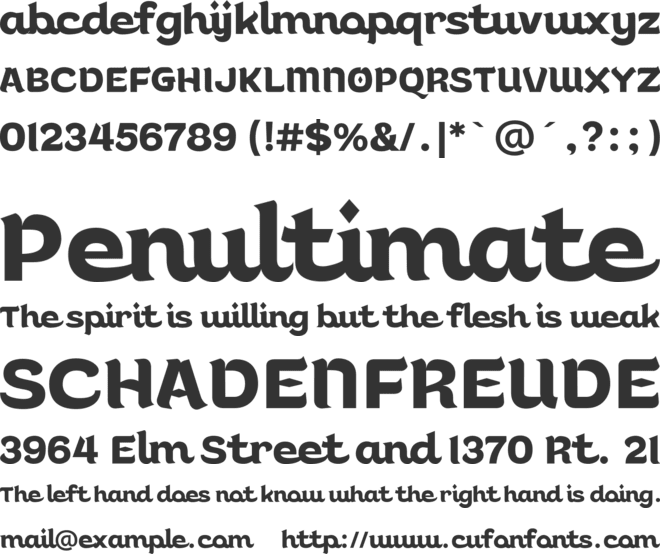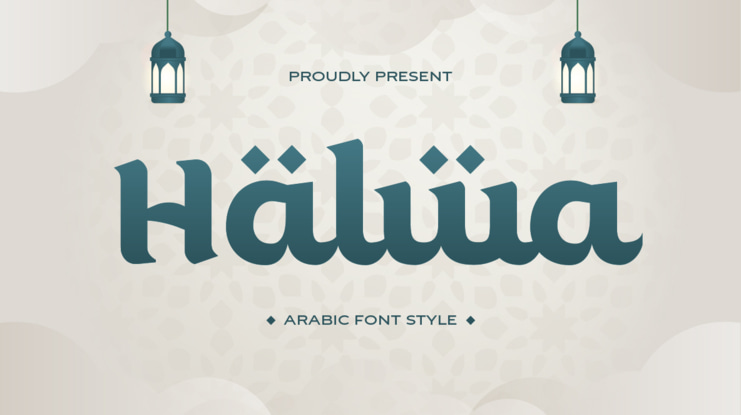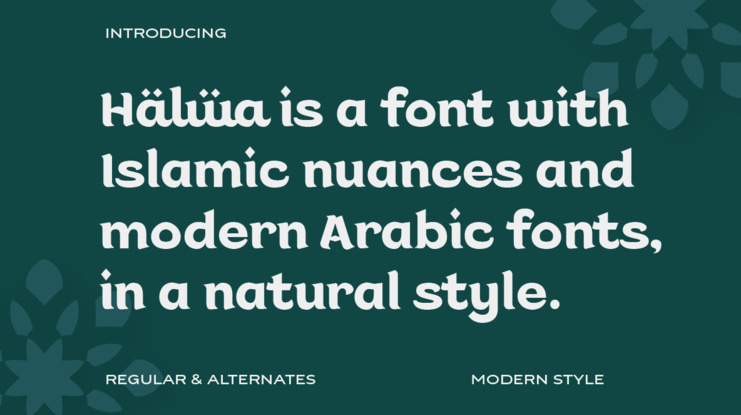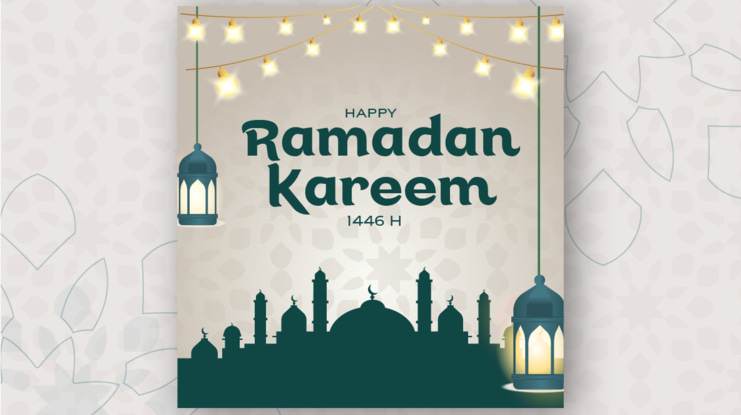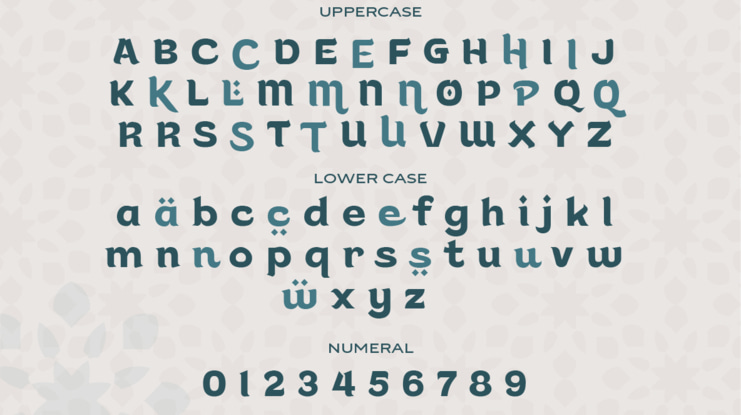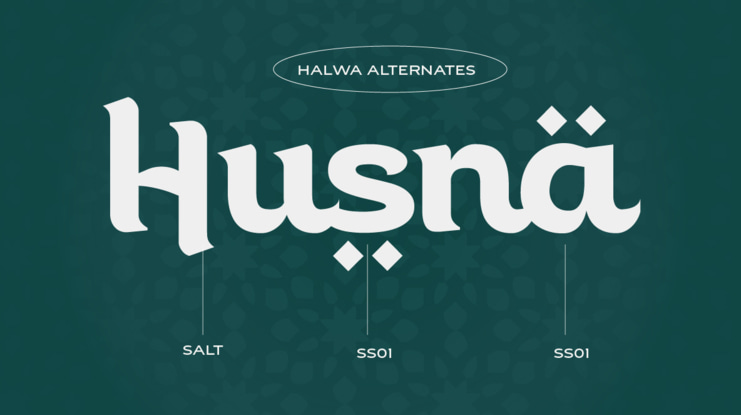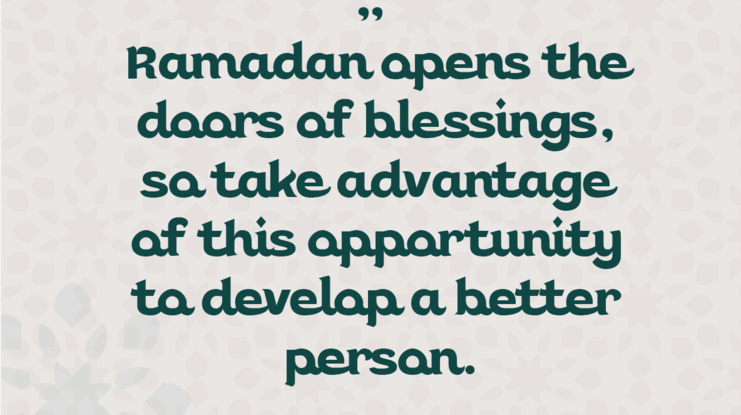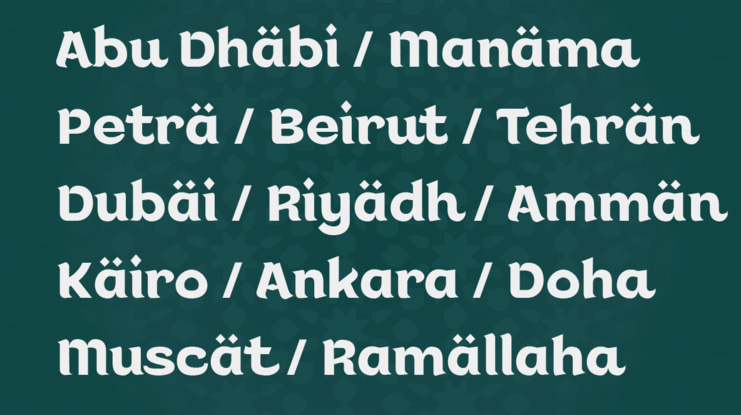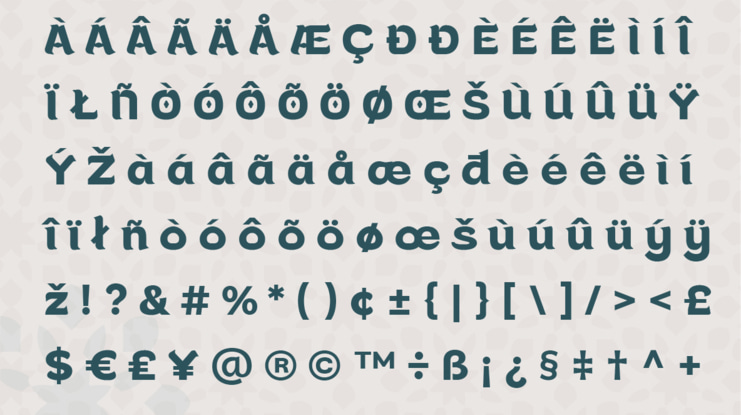
Halwa Font Family
By Abdul Artega, Yukita Creative
Halwa is a carefully crafted font that seamlessly blends Islamic nuances with modern Arabic design, resulting in a perfect blend of tradition and contemporary style. Halwa features simple details and graceful curves, reminiscent of traditional script, reflecting the beauty of the Arabic language. The structure of this font pays homage to the rich cultural heritage of the Islamic world, offering a visual feast for those who appreciate Arabic letterforms.